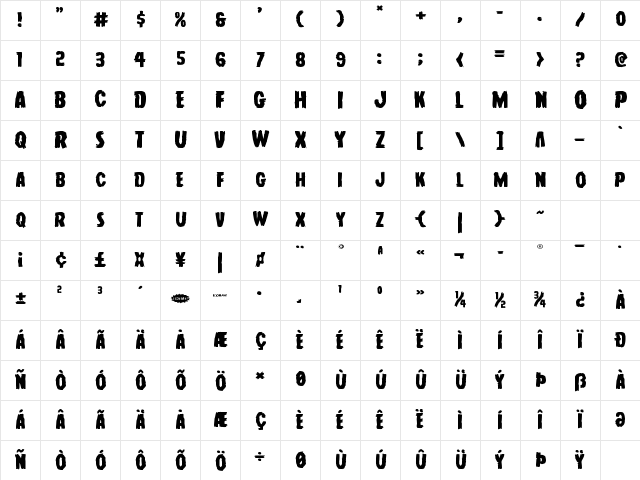
Young Frankenstein Expanded Expanded
Style: Expanded
Design Context for Young Frankenstein Expanded
Young Frankenstein Expanded is a composed and adaptable typeface that performs quietly and consistently across a wide range of design contexts.
Pro Tip: Use Young Frankenstein Expanded in both headline and body roles to test its range before committing to a single application.